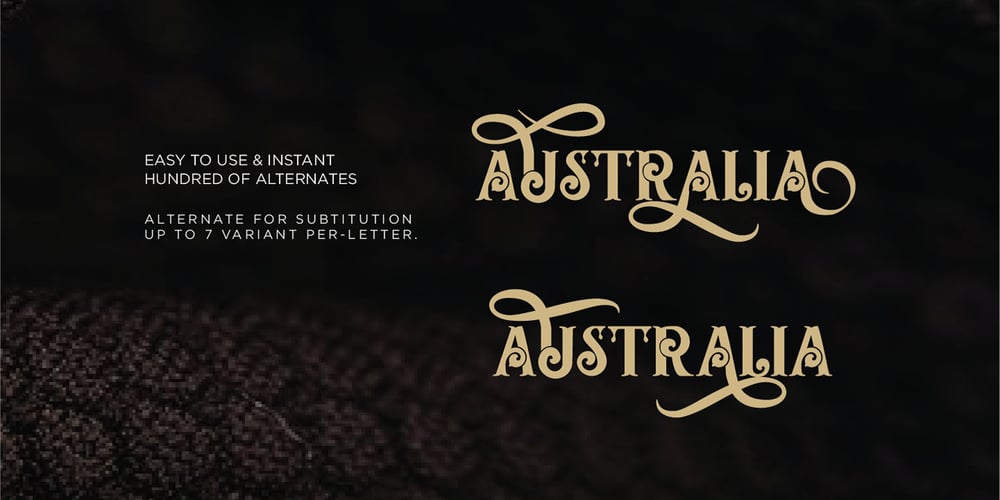
Sabrva Font Family was designed by Sigit Dwipa and published by Nirmana Visual. Sabrva contains 2 styles and family package options. Sabrva by Nirmana Visual is designed to work as perfect companions or simply as strong standalone typefaces. Give your typography design with a touch of Classic style with Sabrva. You can pick the alternate for substitution up to 7 variant per-letter. We really hope you enjoy it! Thank You!